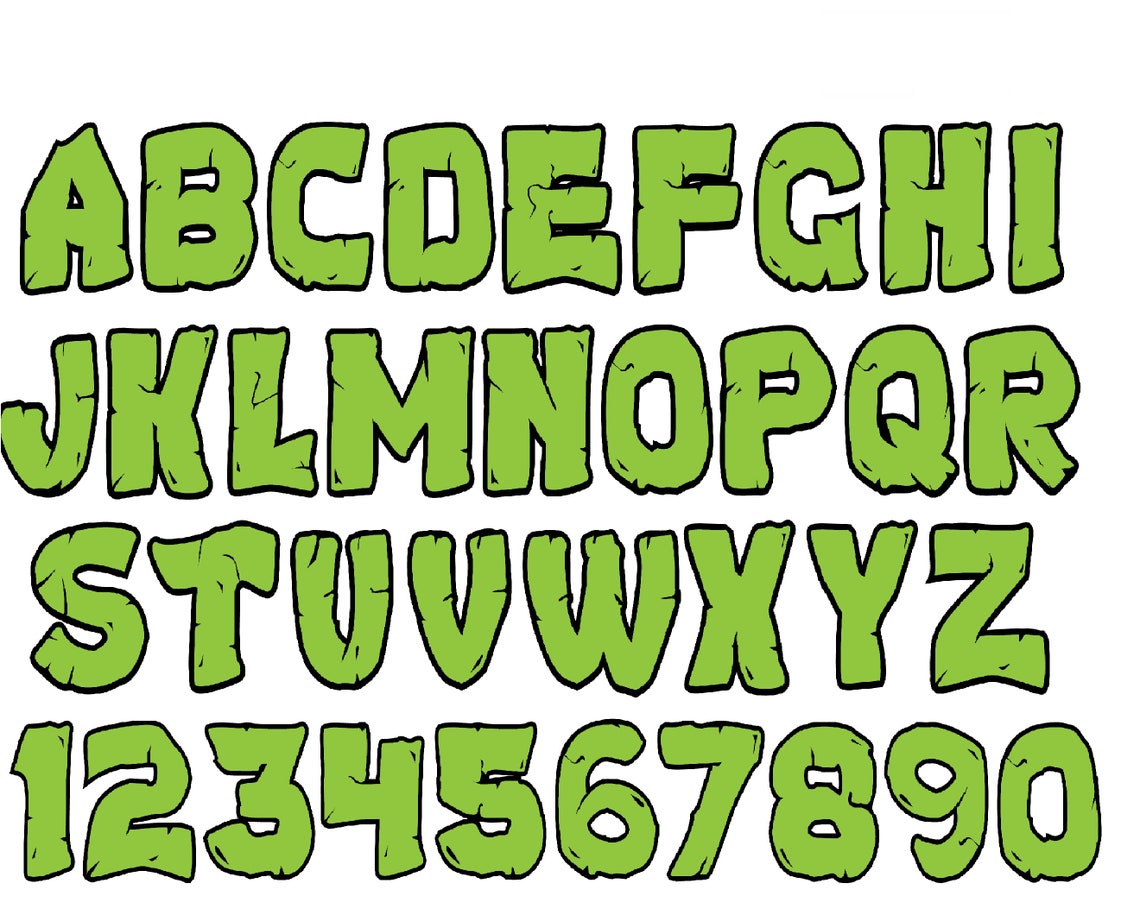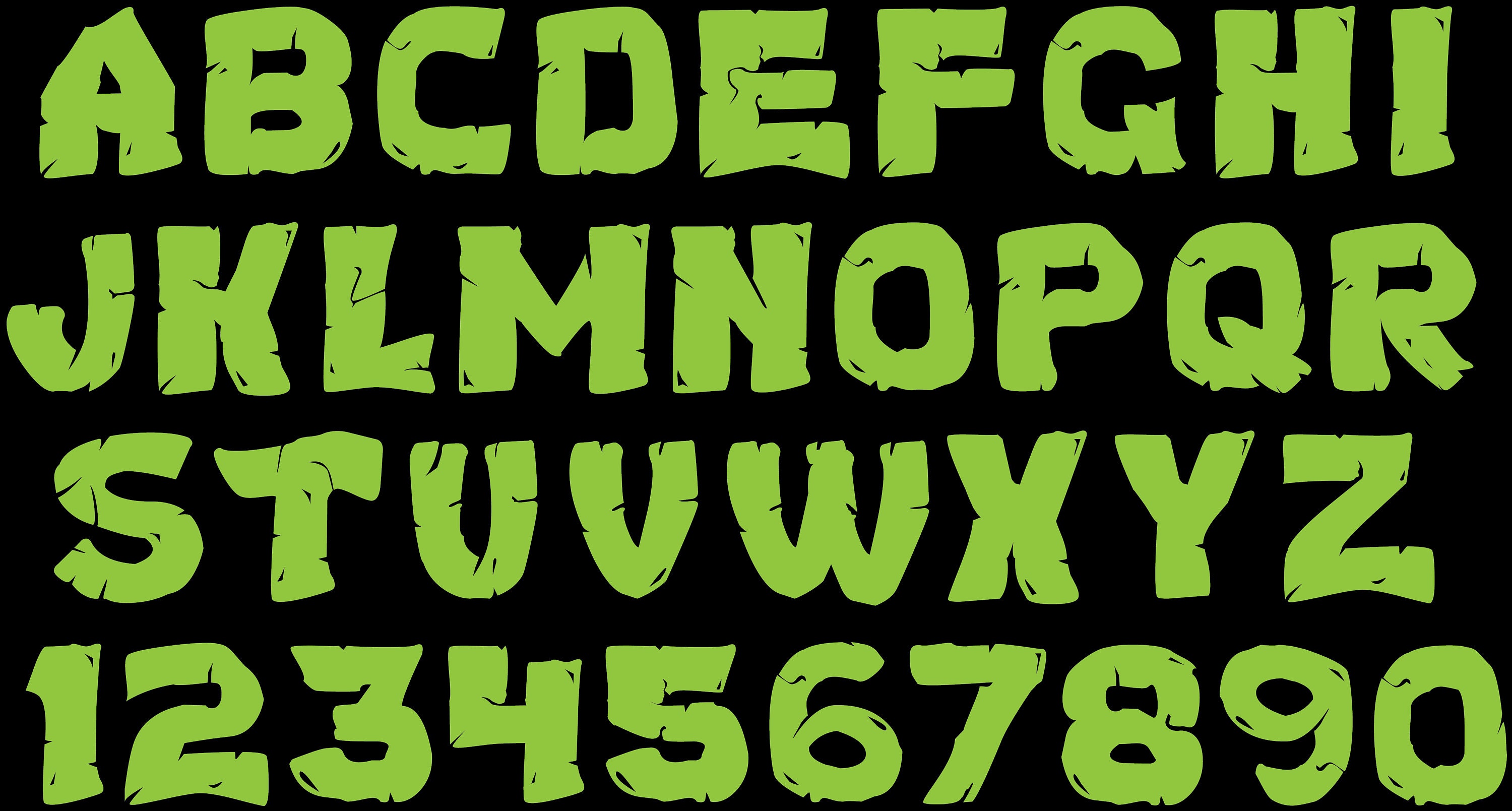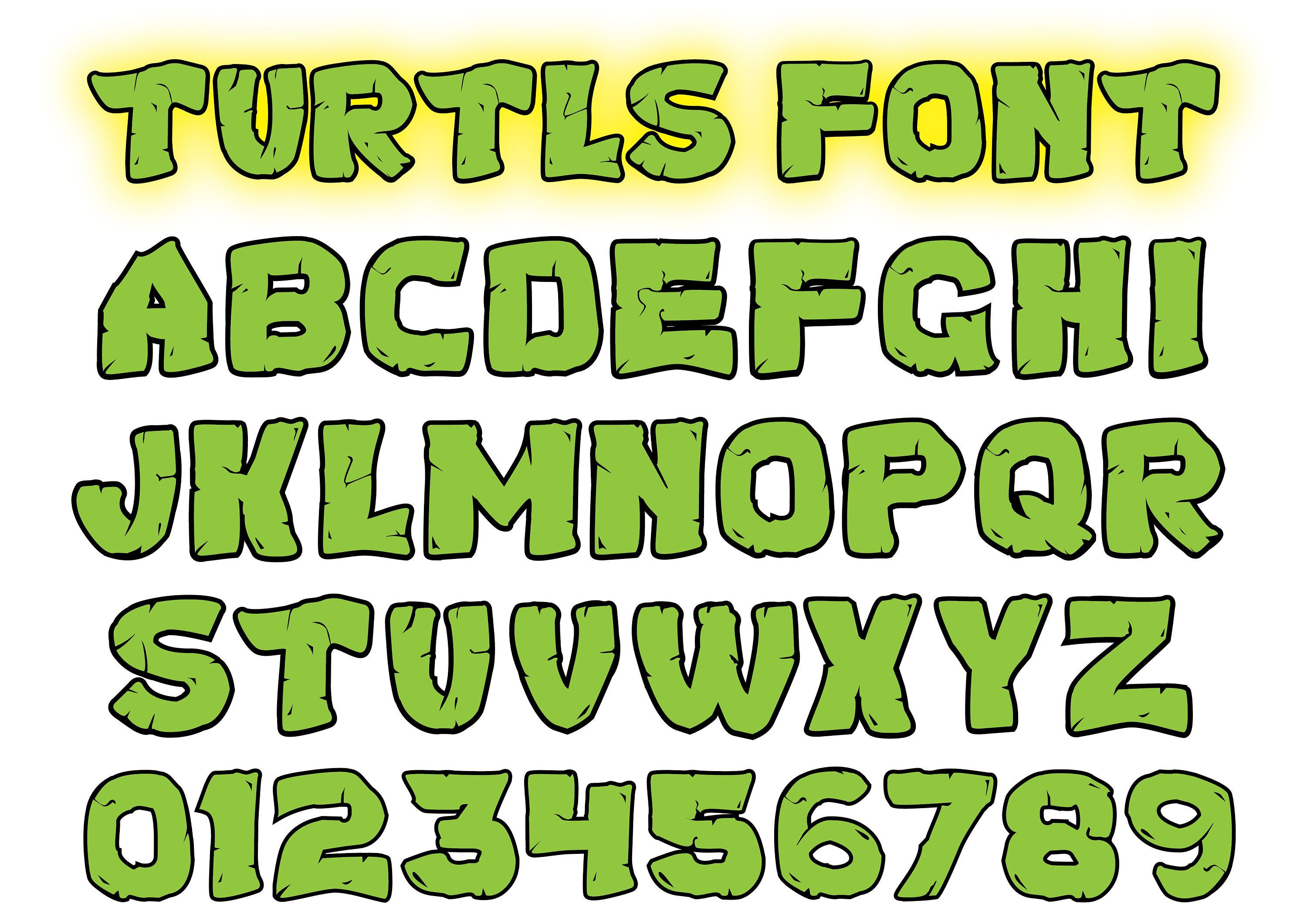
Ninja Turtles Font
Ninja Turtles Font - Fans have recreated the fonts from the movies so you can generate your own turtle power letters. Teenage mutant ninja turtles (tmnt) follows four ninja turtles trained by a rat, splinter, fighting foes in new york, especially shredder. Download the free font replicating elements of the teenage mutant ninja turtles logo and many more at the original famous fonts! The lettering for the green. This thick, distressed typeface is based on the popular clasic teenage mutant ninja turtles logo. Teenage mutant ninja turtles, also known as tmnt, is a famous kids cartoon and movie series. Tmnt logo has used many different font styles over the years. Includes the euro, extended punctuation, and accent characters.
Includes the euro, extended punctuation, and accent characters. This thick, distressed typeface is based on the popular clasic teenage mutant ninja turtles logo. Tmnt logo has used many different font styles over the years. Download the free font replicating elements of the teenage mutant ninja turtles logo and many more at the original famous fonts! Teenage mutant ninja turtles (tmnt) follows four ninja turtles trained by a rat, splinter, fighting foes in new york, especially shredder. Fans have recreated the fonts from the movies so you can generate your own turtle power letters. The lettering for the green. Teenage mutant ninja turtles, also known as tmnt, is a famous kids cartoon and movie series.
Tmnt logo has used many different font styles over the years. This thick, distressed typeface is based on the popular clasic teenage mutant ninja turtles logo. Teenage mutant ninja turtles (tmnt) follows four ninja turtles trained by a rat, splinter, fighting foes in new york, especially shredder. Includes the euro, extended punctuation, and accent characters. Fans have recreated the fonts from the movies so you can generate your own turtle power letters. The lettering for the green. Teenage mutant ninja turtles, also known as tmnt, is a famous kids cartoon and movie series. Download the free font replicating elements of the teenage mutant ninja turtles logo and many more at the original famous fonts!
Fans have recreated the fonts from the movies so you can generate your own turtle power letters. This thick, distressed typeface is based on the popular clasic teenage mutant ninja turtles logo. Teenage mutant ninja turtles (tmnt) follows four ninja turtles trained by a rat, splinter, fighting foes in new york, especially shredder. Teenage mutant ninja turtles, also known as.
Includes the euro, extended punctuation, and accent characters. Teenage mutant ninja turtles (tmnt) follows four ninja turtles trained by a rat, splinter, fighting foes in new york, especially shredder. Teenage mutant ninja turtles, also known as tmnt, is a famous kids cartoon and movie series. Download the free font replicating elements of the teenage mutant ninja turtles logo and many.
The lettering for the green. Fans have recreated the fonts from the movies so you can generate your own turtle power letters. Tmnt logo has used many different font styles over the years. Includes the euro, extended punctuation, and accent characters. Teenage mutant ninja turtles, also known as tmnt, is a famous kids cartoon and movie series.
Teenage mutant ninja turtles, also known as tmnt, is a famous kids cartoon and movie series. This thick, distressed typeface is based on the popular clasic teenage mutant ninja turtles logo. The lettering for the green. Includes the euro, extended punctuation, and accent characters. Fans have recreated the fonts from the movies so you can generate your own turtle power.
Fans have recreated the fonts from the movies so you can generate your own turtle power letters. Includes the euro, extended punctuation, and accent characters. This thick, distressed typeface is based on the popular clasic teenage mutant ninja turtles logo. The lettering for the green. Download the free font replicating elements of the teenage mutant ninja turtles logo and many.
Tmnt logo has used many different font styles over the years. The lettering for the green. Teenage mutant ninja turtles (tmnt) follows four ninja turtles trained by a rat, splinter, fighting foes in new york, especially shredder. This thick, distressed typeface is based on the popular clasic teenage mutant ninja turtles logo. Teenage mutant ninja turtles, also known as tmnt,.
Includes the euro, extended punctuation, and accent characters. Fans have recreated the fonts from the movies so you can generate your own turtle power letters. This thick, distressed typeface is based on the popular clasic teenage mutant ninja turtles logo. Download the free font replicating elements of the teenage mutant ninja turtles logo and many more at the original famous.
Includes the euro, extended punctuation, and accent characters. Tmnt logo has used many different font styles over the years. Teenage mutant ninja turtles (tmnt) follows four ninja turtles trained by a rat, splinter, fighting foes in new york, especially shredder. Fans have recreated the fonts from the movies so you can generate your own turtle power letters. Teenage mutant ninja.
This Thick, Distressed Typeface Is Based On The Popular Clasic Teenage Mutant Ninja Turtles Logo.
Includes the euro, extended punctuation, and accent characters. Download the free font replicating elements of the teenage mutant ninja turtles logo and many more at the original famous fonts!